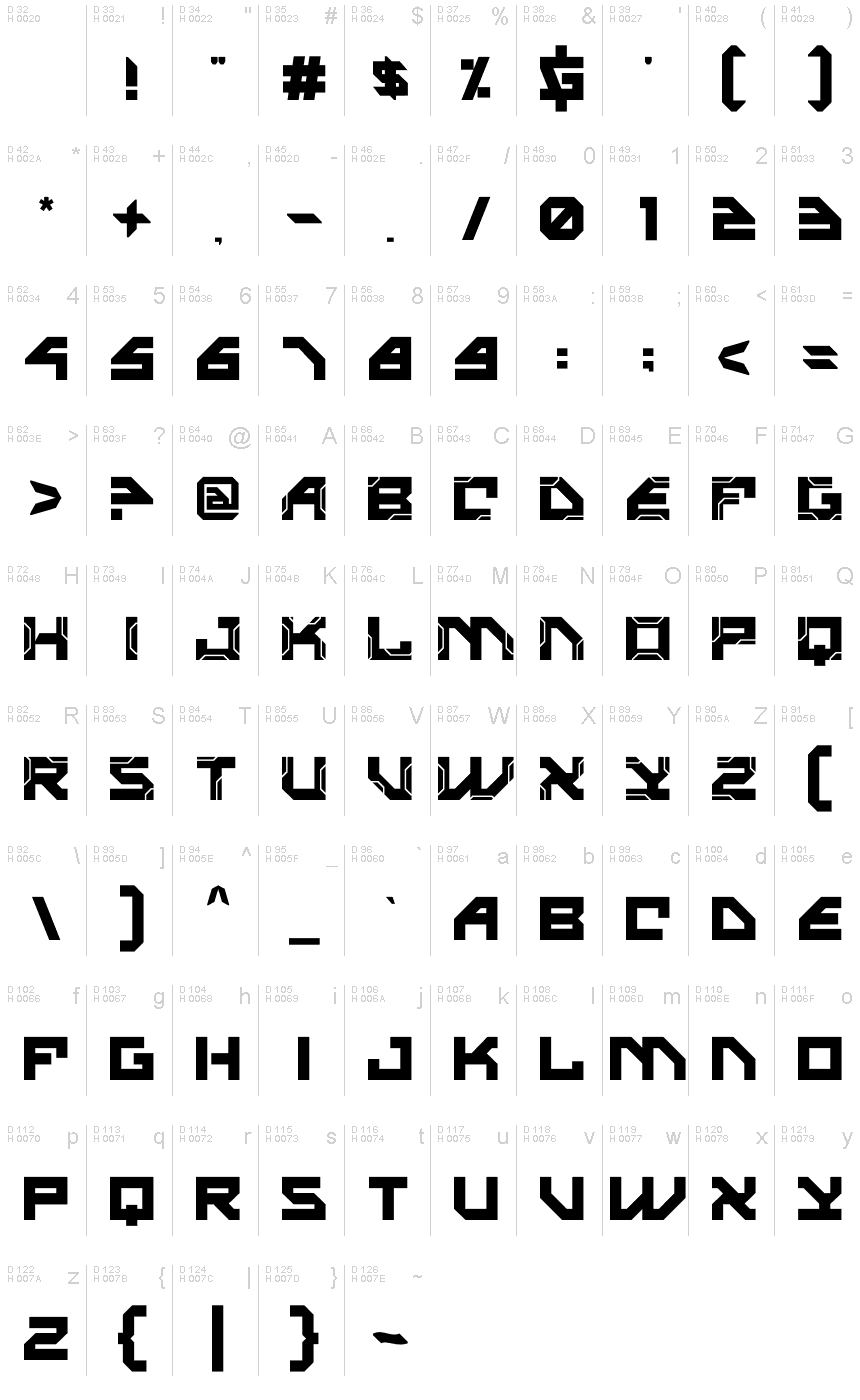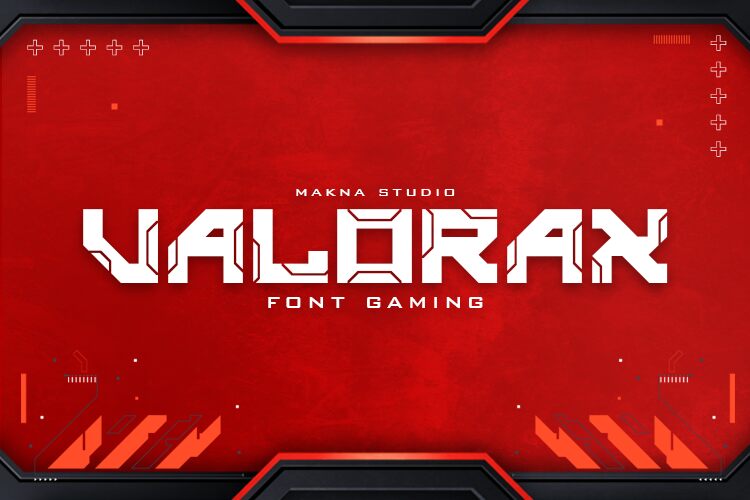
valorax
Valorax emerges as a font that effortlessly conveys strength and modernity. Crafted by MaknaStudio, this display typeface boasts a bold weight combined with an expanded width, giving it a commanding presence on any canvas. Its futuristic style is marked by crisp lines and sharp angles, creating an aesthetic that is undeniably contemporary.
The visual appeal of Valorax lies in its ability to stand out. It's not just a font; it's a statement piece that can elevate the design of logos, headlines, and any project where impact is key. The generous spacing and uniform thickness of the characters ensure high legibility, making it as practical as it is striking.
Ideal for creative endeavors that demand attention, Valorax's cutting-edge appearance encapsulates the forward-thinking vision of its creators. Whether used in digital media or print, this typeface promises to imbue designs with an air of innovation and boldness suited for the future.